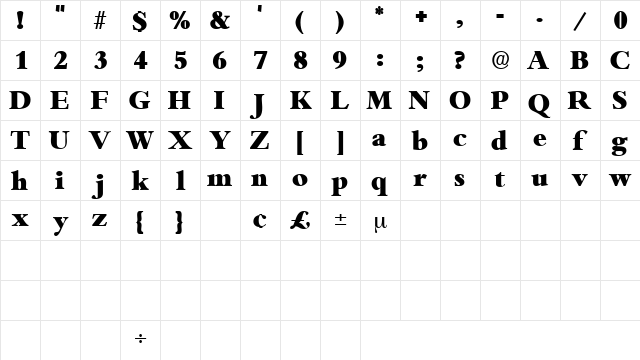
ScholeDisplaySSK Regular
Design Context for ScholeDisplaySSK Typeface
ScholeDisplaySSK brings ornamental detail and strong personality to headlines and identities, where visual impact matters more than quiet functionality.
Font Pairing: Pair with a clean neutral sans-serif for body copy to let ScholeDisplaySSK's character lead without overwhelming the composition.
Pro Tip: Use ScholeDisplaySSK exclusively at display sizes — it was designed to be seen, not read at length. Let a neutral companion handle body copy.